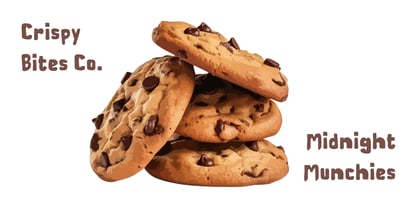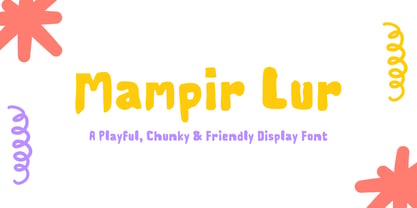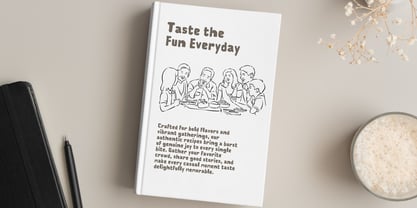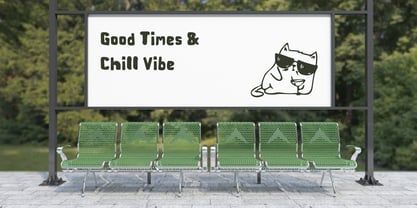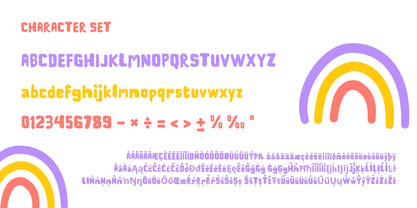
Mampir Lur
Mampir Lur is a bold, playful, and cheerful display font crafted to bring a warm, friendly, and hand-drawn vibe to any creative project. Featuring organic cut-out shapes, soft rounded edges, and intentionally quirky proportions, this typeface radiates approachable charisma and lively energy.
Rooted in the spirit of casual community and welcoming vibes—inspired by the friendly invitation to drop by and hang out—Mampir Lur breaks away from rigid geometry to offer authentic handcrafted character. Its heavy weight and bouncy baseline deliver maximum visual impact while maintaining effortless legibility.
Ideal Design Applications
• Food & Beverage Branding: Snack packaging, food truck signage, café menus, craft beer labels, and casual restaurant identities.
• Merchandise & Apparel: Graphic t-shirts, tote bags, stickers, enamel pins, and urban streetwear graphics.
• Children's & Editorial Media: Picture books, comic covers, school event posters, games, and playful title headers.
• Social Media & Marketing: YouTube thumbnails, Instagram reels, vibrant marketing banners, and punchy promotional campaigns.
Key Features
• Full uppercase and lowercase character set with distinctive playful contours
• Standard numeric digits (0–9) and essential punctuation
• High-contrast, chunky silhouettes optimized for bold headlines and display sizes
• Handcrafted, uneven outlines that add tactile warmth to digital layouts
Pairing Recommendations
For high-impact visual contrast, pair Mampir Lur with clean geometric sans-serifs (like Montserrat, Poppins, or Futura) for supporting body copy, or complement it with textured monoline scripts for a retro, artisanal aesthetic.
Add an inviting, bold personality to your next design with Mampir Lur—the perfect display typeface for projects that need to feel fun, vibrant, and full of life.